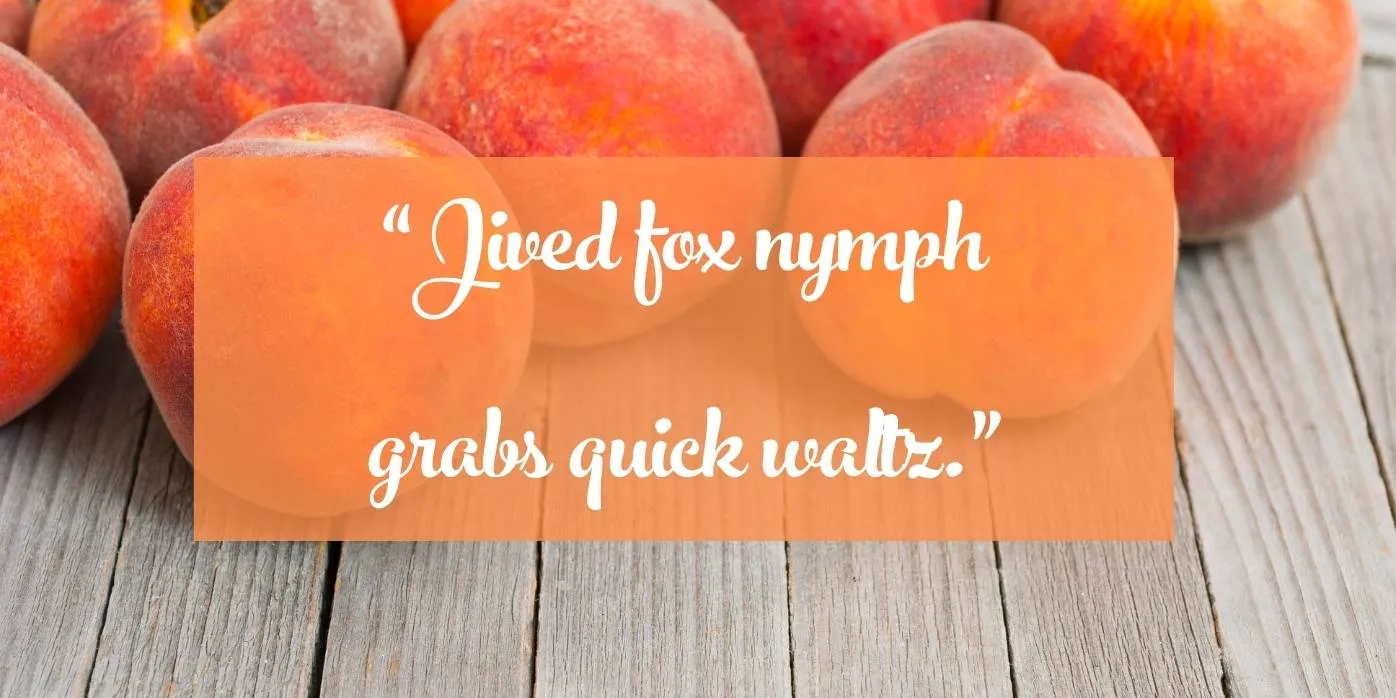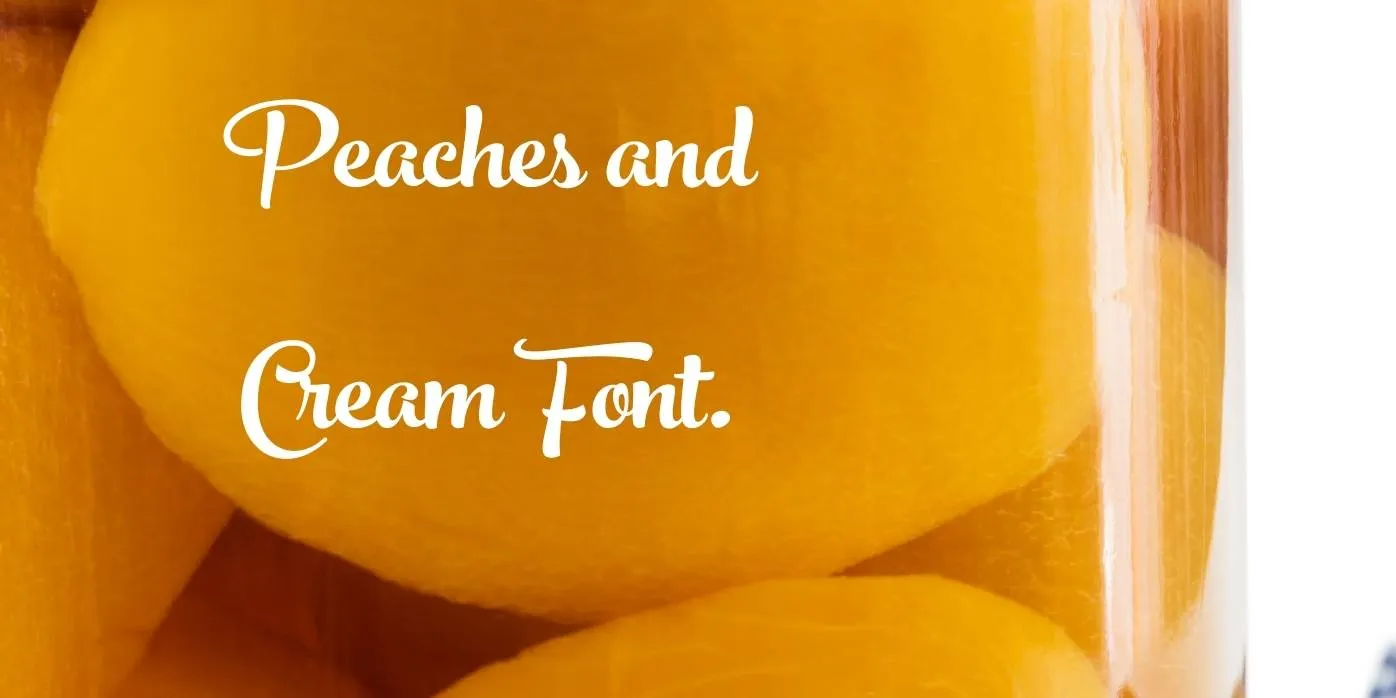
Peaches And Cream Font
Here, we are going to introduce a modern typeface named Peaches And Cream Font. It is a beautiful and unique font that was created by Emil Bertell. It is a script-typeface with a soft and rounded look. The font includes regular, italic, and bold weights, which makes it perfect for both headlines and body text.
This lovely typeface has been inspired by the classic serif typefaces such as Bembo Font. However, this Font has a softer and more rounded look that makes it stand out from the rest. The regular weight is perfect for body text, while the italic and bold weights can be used for headlines and other display purposes. It is not included in Google Font you can download this typeface from our websites.